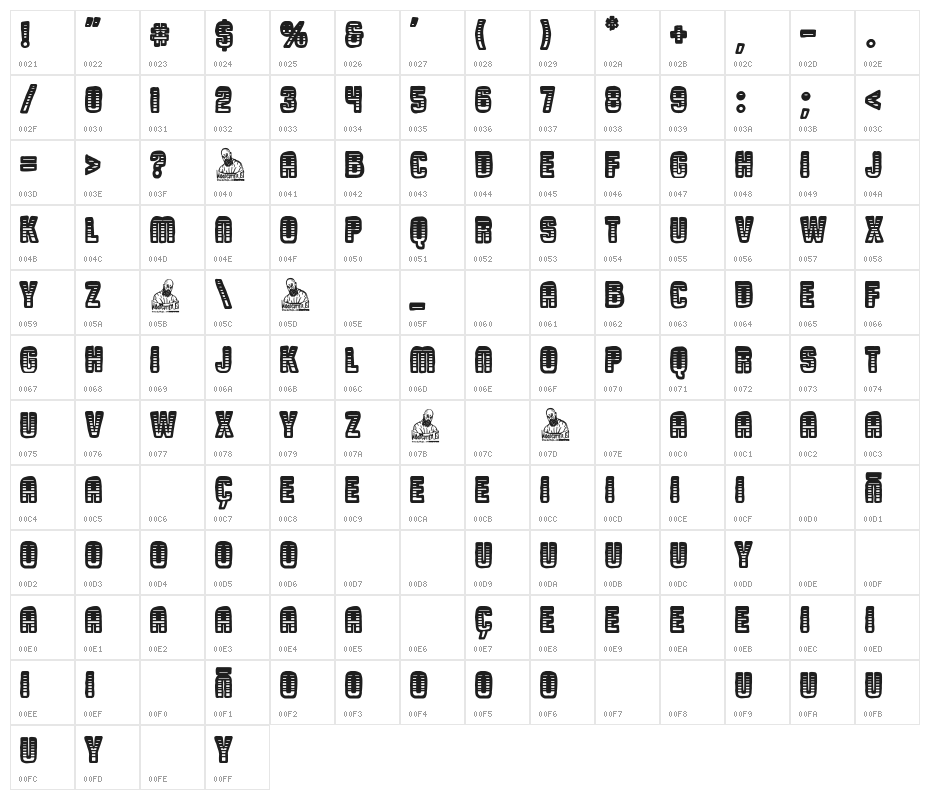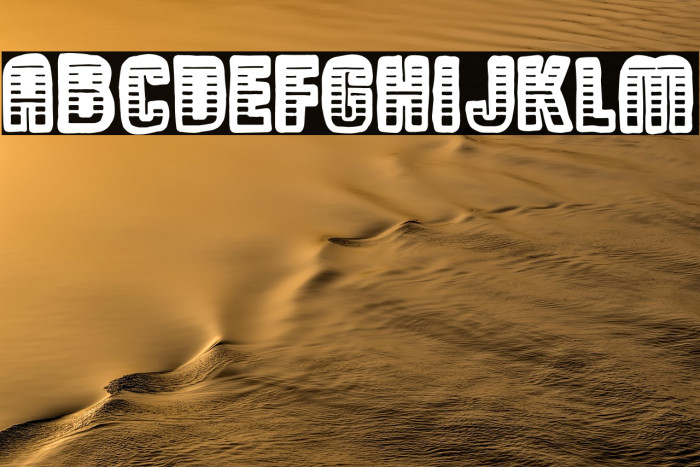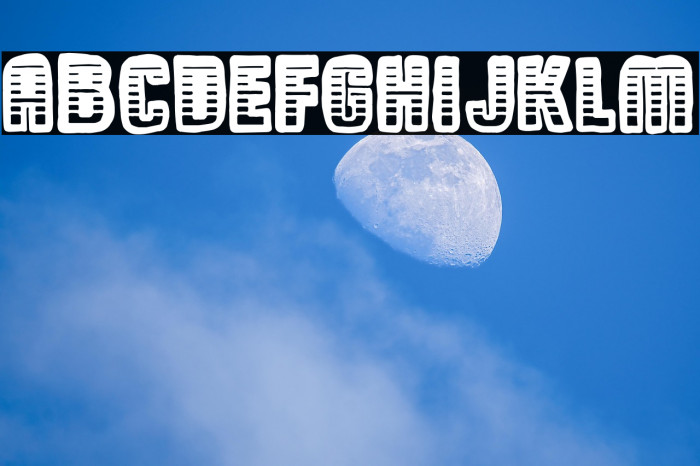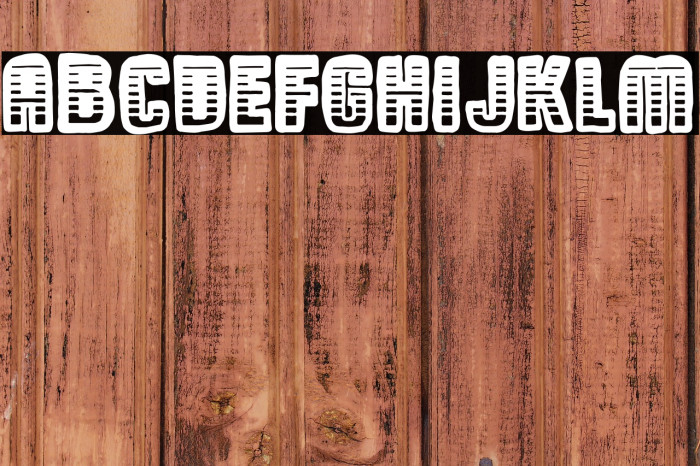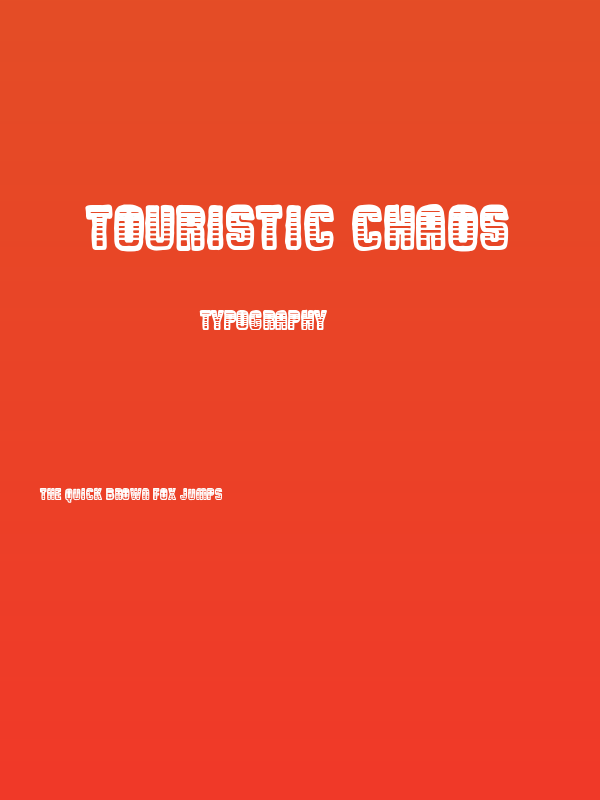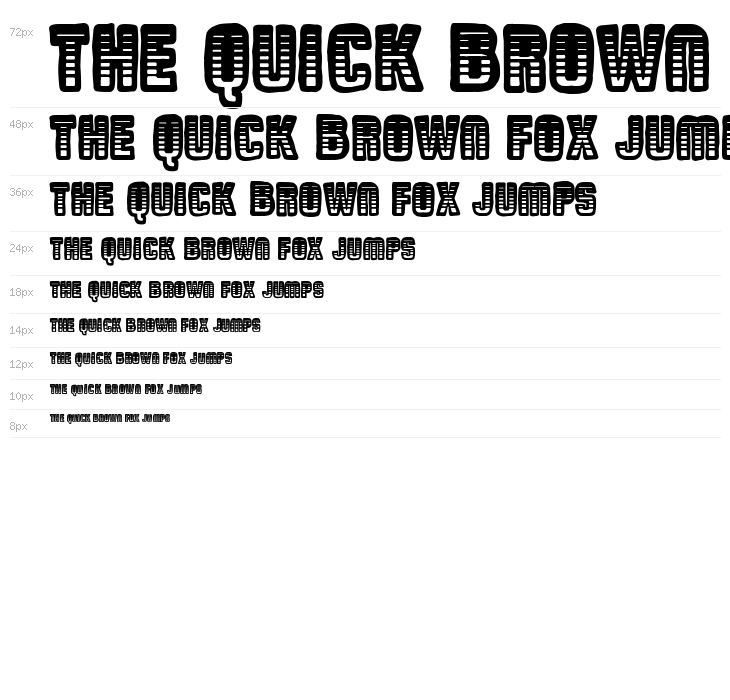
Touristic Chaos Font
Touristic Chaos Description
This font features a bold and decorative style with a unique striped pattern inside each character, creating a sense of depth and texture. The uppercase letters are uniform in height, while the lowercase letters maintain a consistent style, enhancing readability. The numbers and special characters follow the same design, ensuring a cohesive look across all text elements. The thick outlines and internal detailing make it ideal for eye-catching designs.
| Proposed Projects | Ideal for posters, event flyers, branding materials, and any project requiring a striking, playful aesthetic. |